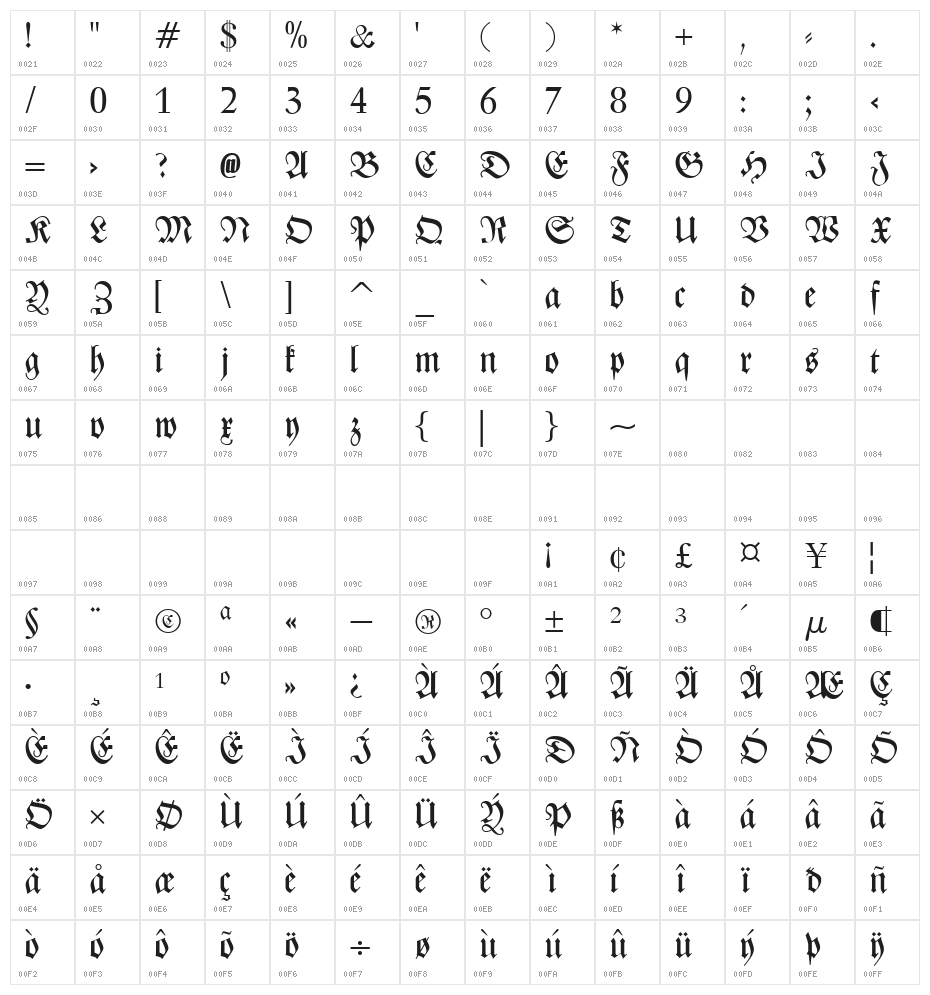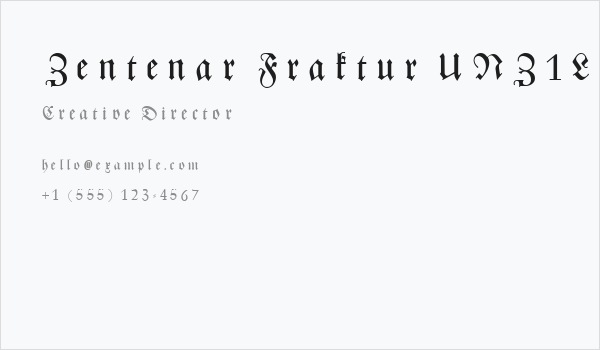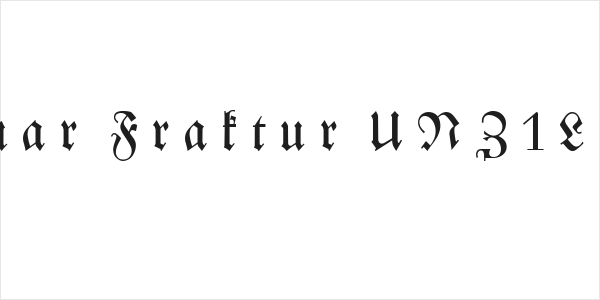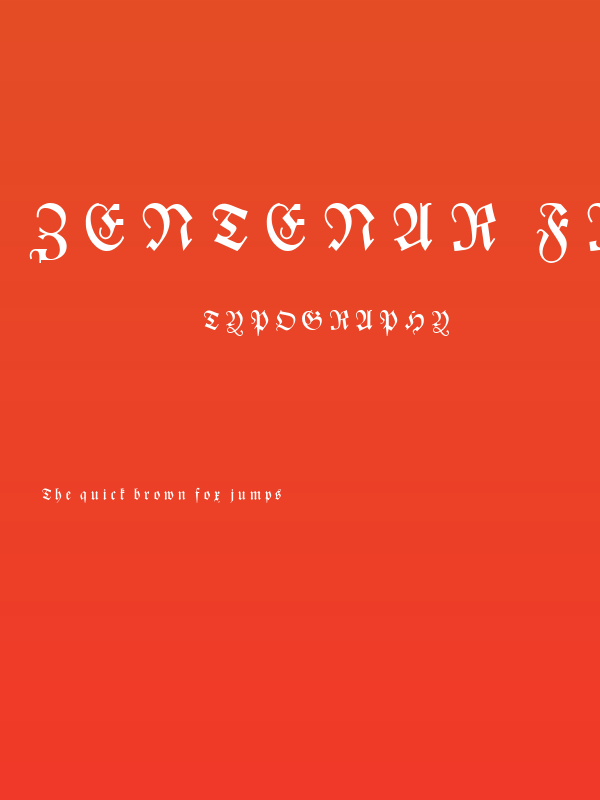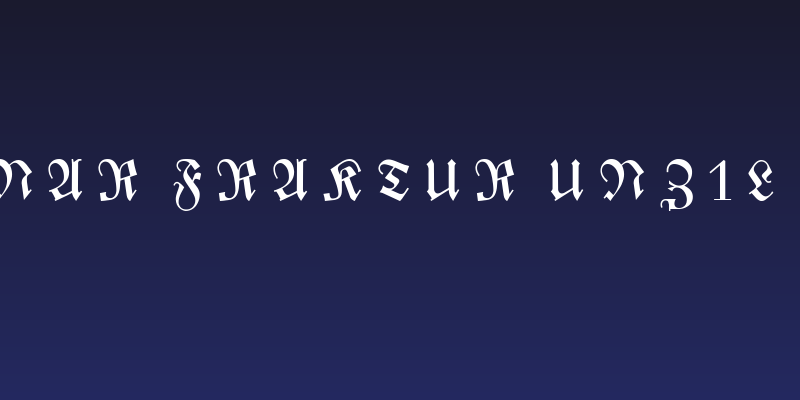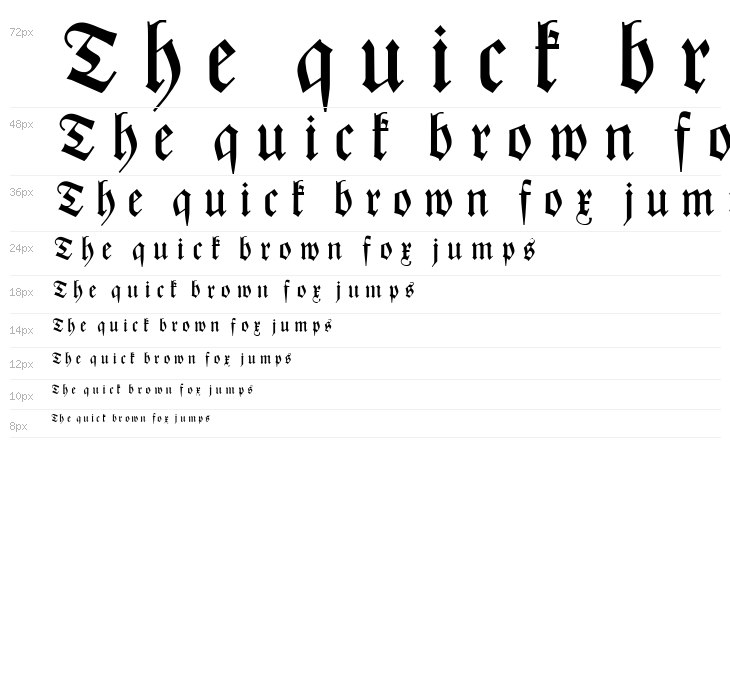
Zentenar Fraktur UNZ1L Italic Font
Zentenar Fraktur UNZ1L Italic Description
This font is a classic example of Blackletter style, characterized by its intricate and ornate letterforms. The uppercase letters feature sharp, angular lines with decorative flourishes, while the lowercase letters maintain a consistent gothic aesthetic. The numerals are more straightforward, providing a clear contrast to the elaborate letters. Special characters are designed to match the overall style, adding to the font's cohesive look. The italic nature of the font adds a dynamic and flowing quality, enhancing its historical and traditional appeal.
| Proposed Projects | Ideal for historical documents, certificates, wedding invitations, and branding that requires a traditional or gothic touch. |
Zentenar Fraktur UNZ1L Italic